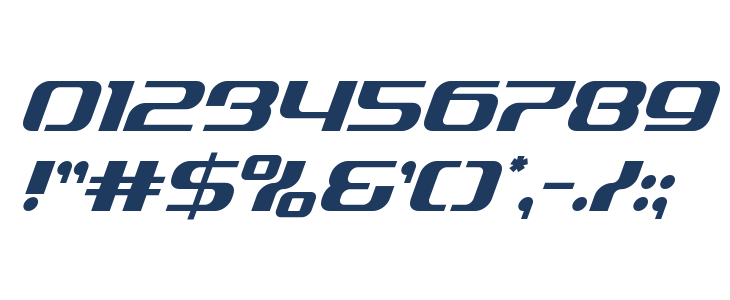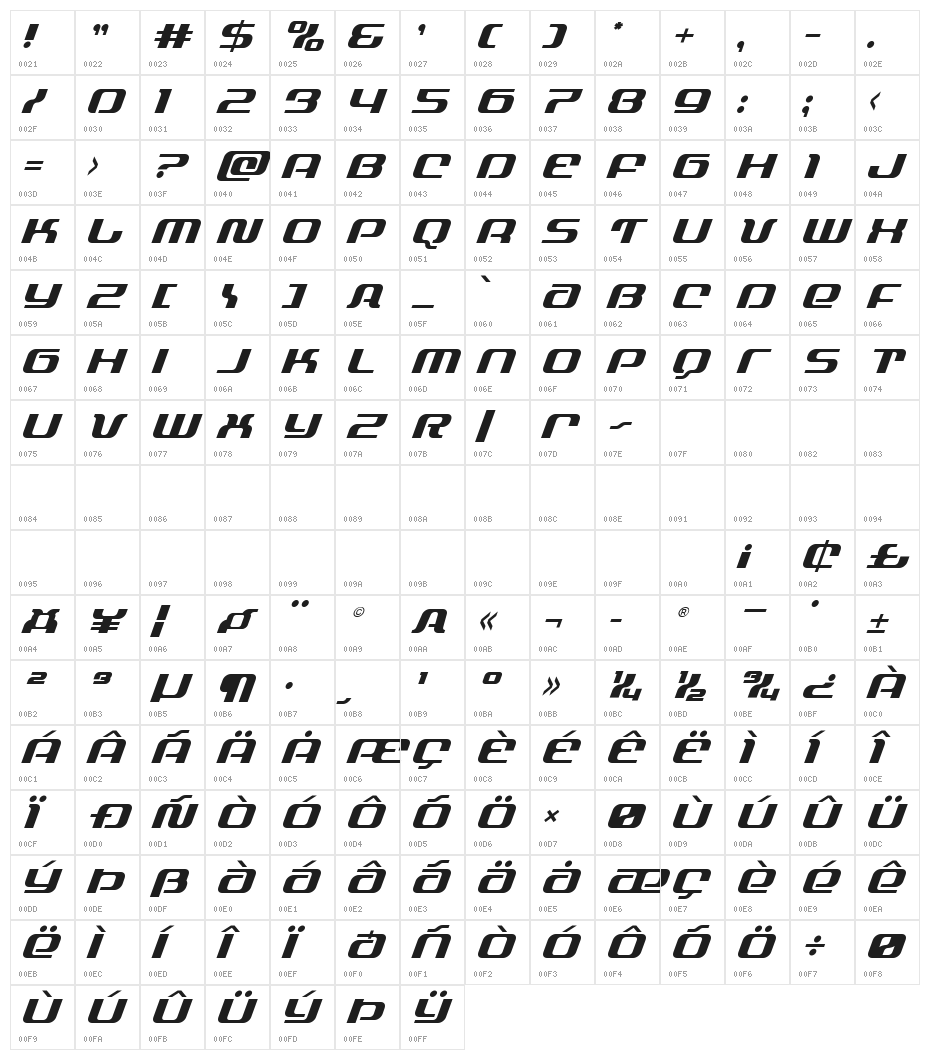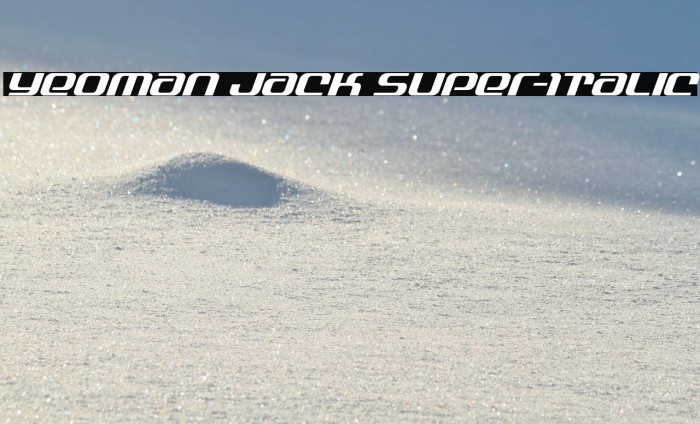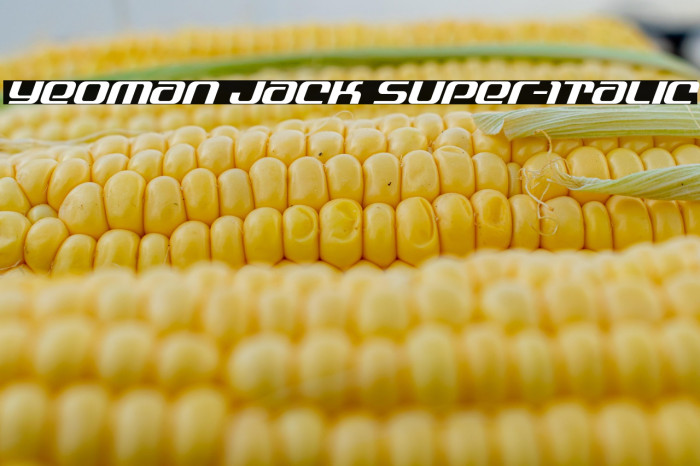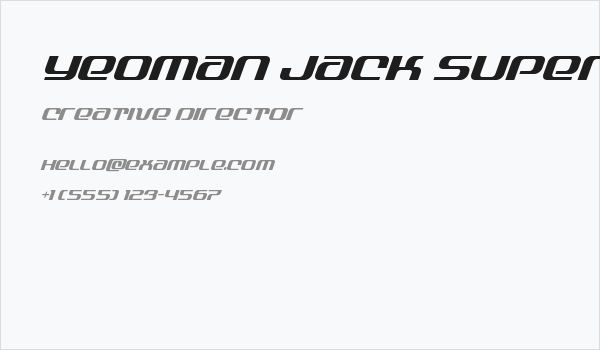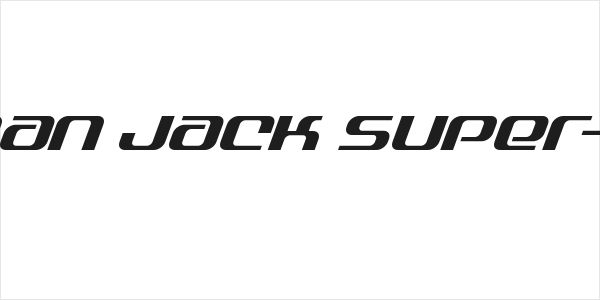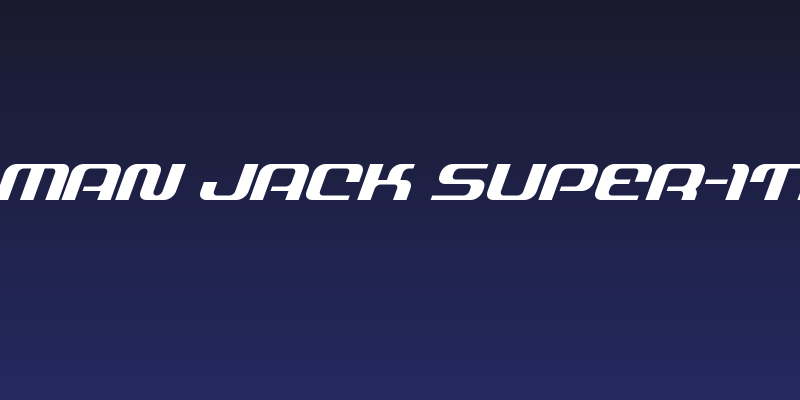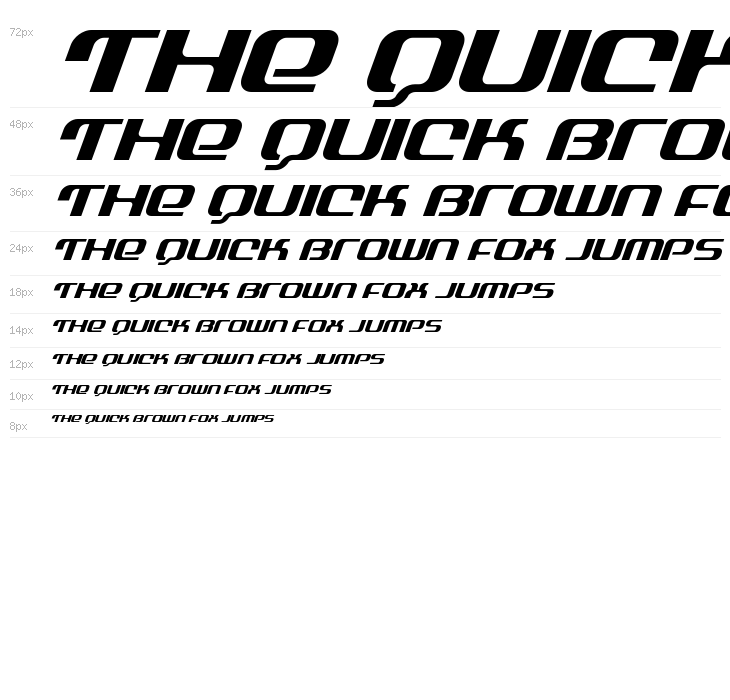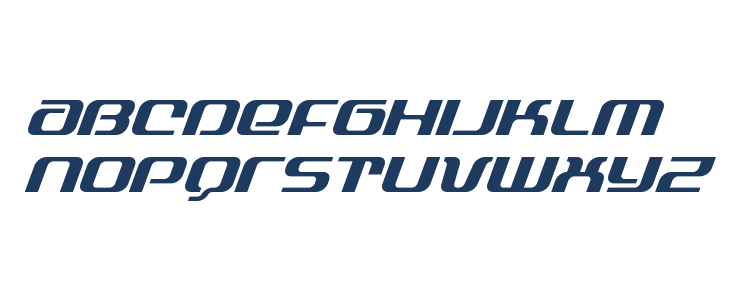
Yeoman Jack Super-Italic Font
Yeoman Jack Super-Italic Description
This font features a dynamic and futuristic design, characterized by its italicized, slanted letterforms that convey a sense of motion and speed. The characters are bold and have a distinct geometric structure, with sharp angles and clean lines. The uppercase and lowercase letters maintain a consistent style, enhancing readability while adding a modern edge. The numerals and special characters are designed to match the overall aesthetic, making them suitable for a variety of applications. The font's unique style makes it ideal for projects that require a contemporary and energetic look.
| Use Case | Logos, Headlines, Branding |
| Proposed Projects | Ideal for branding, sports team logos, technology-related projects, and modern advertising campaigns. |